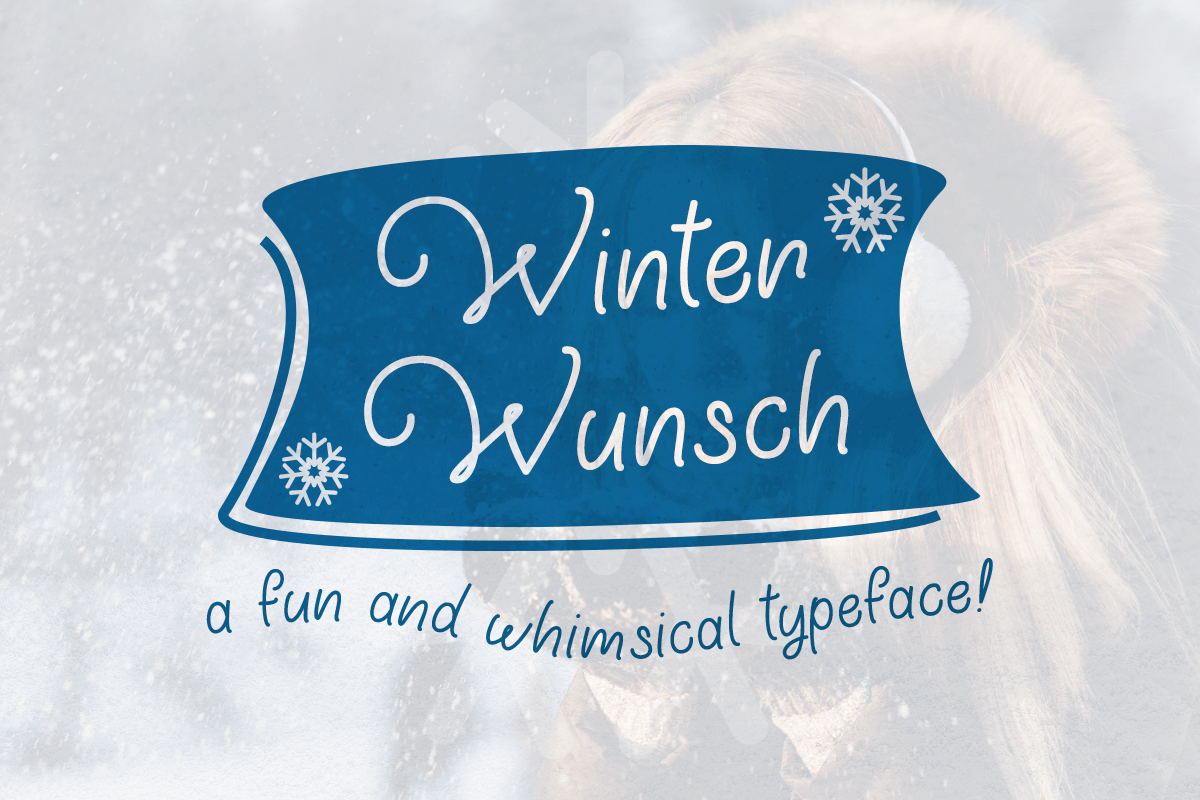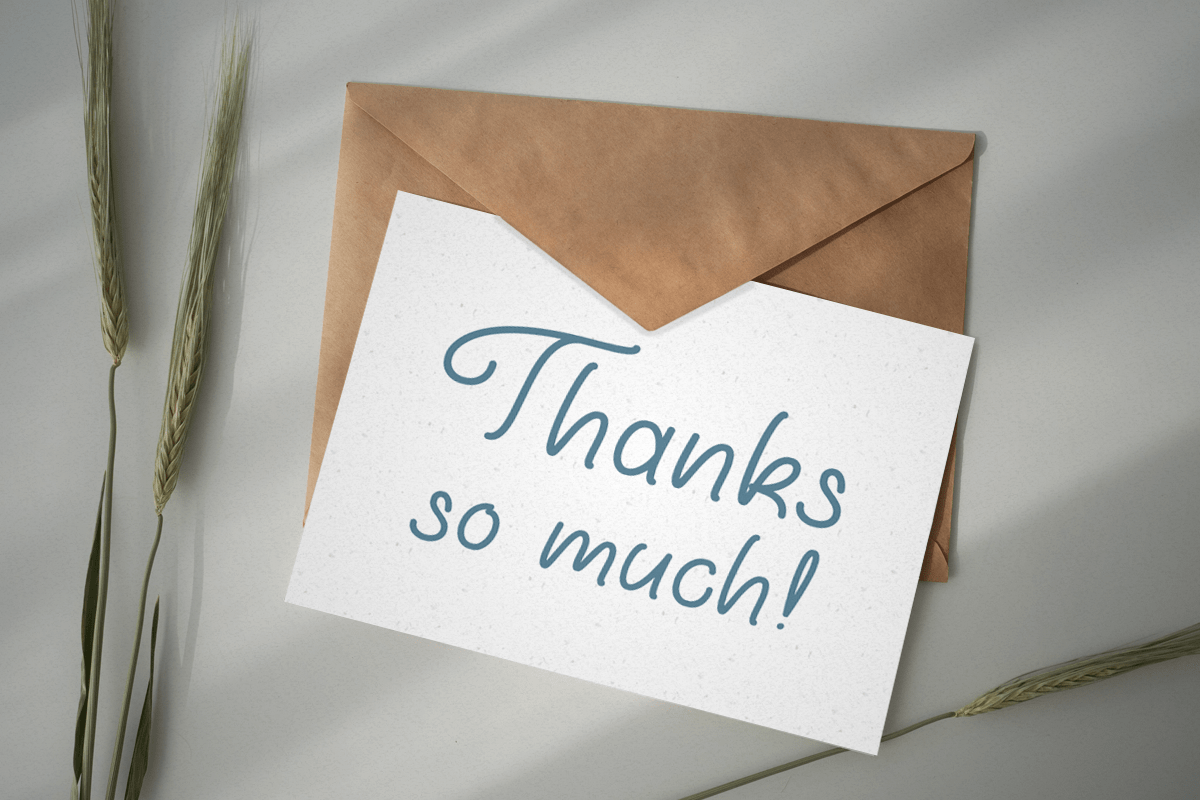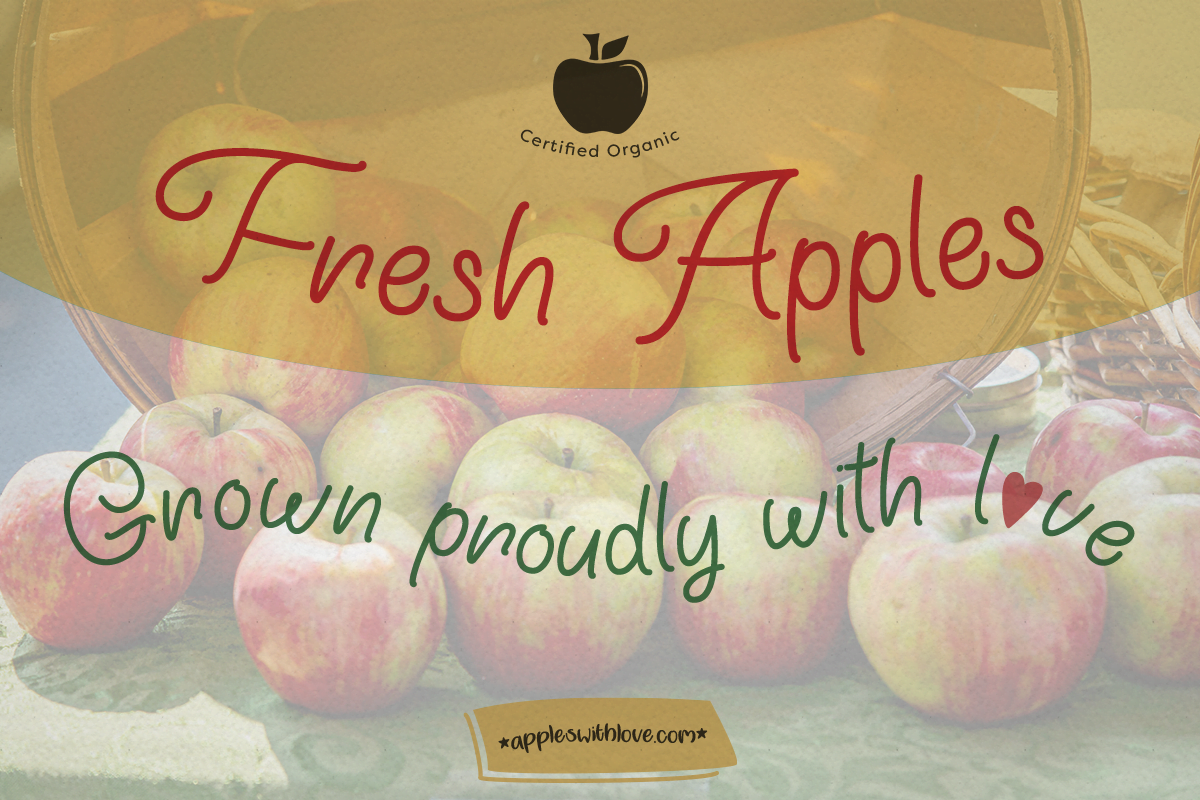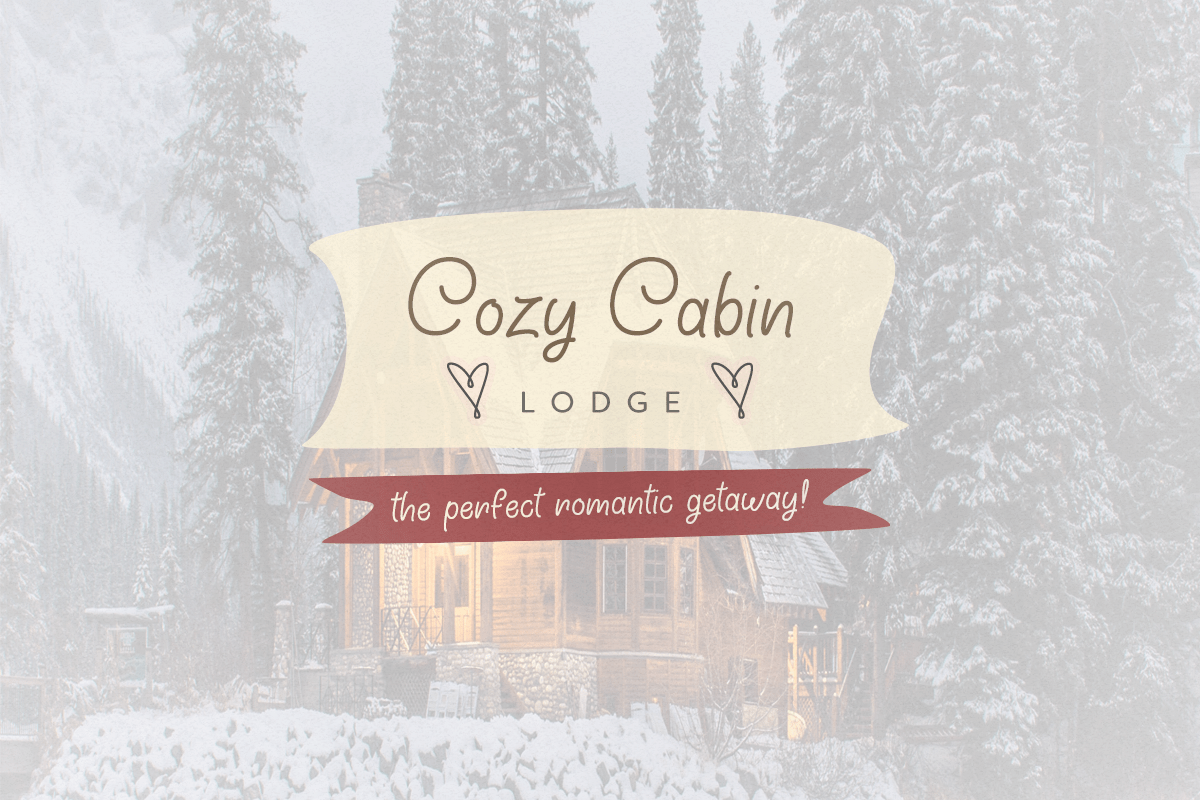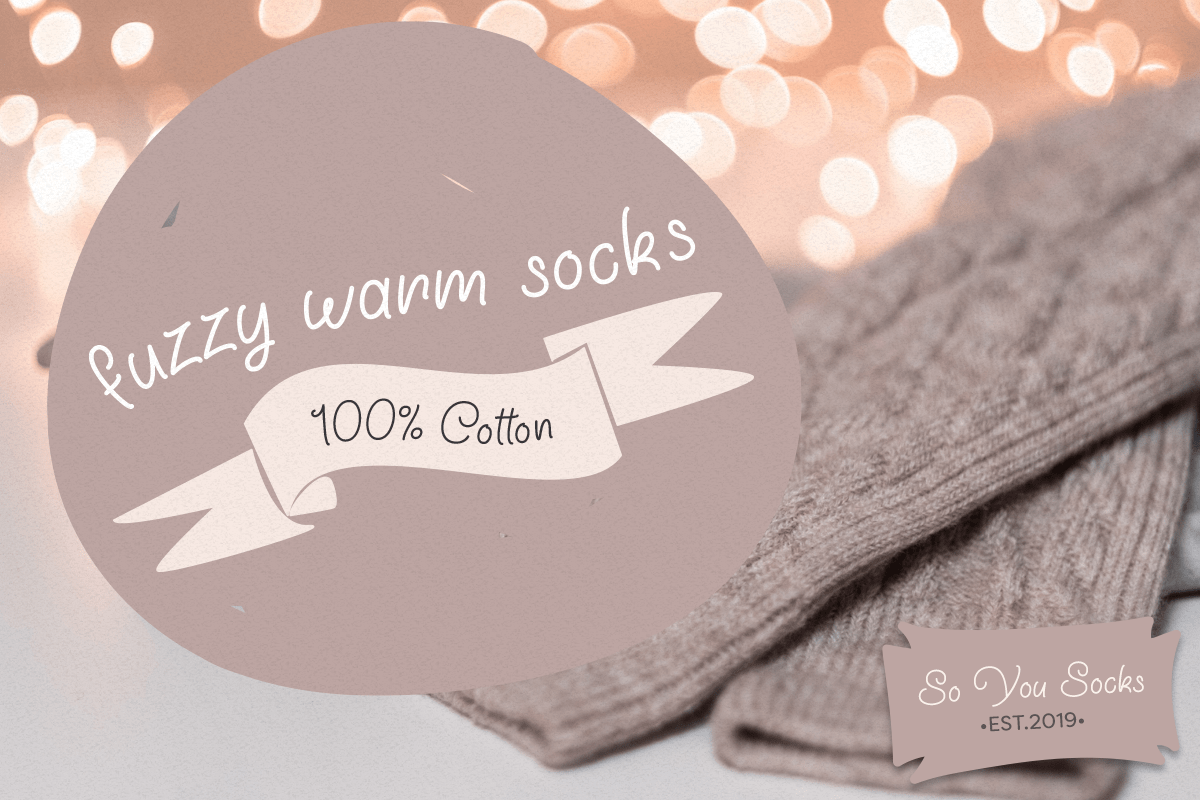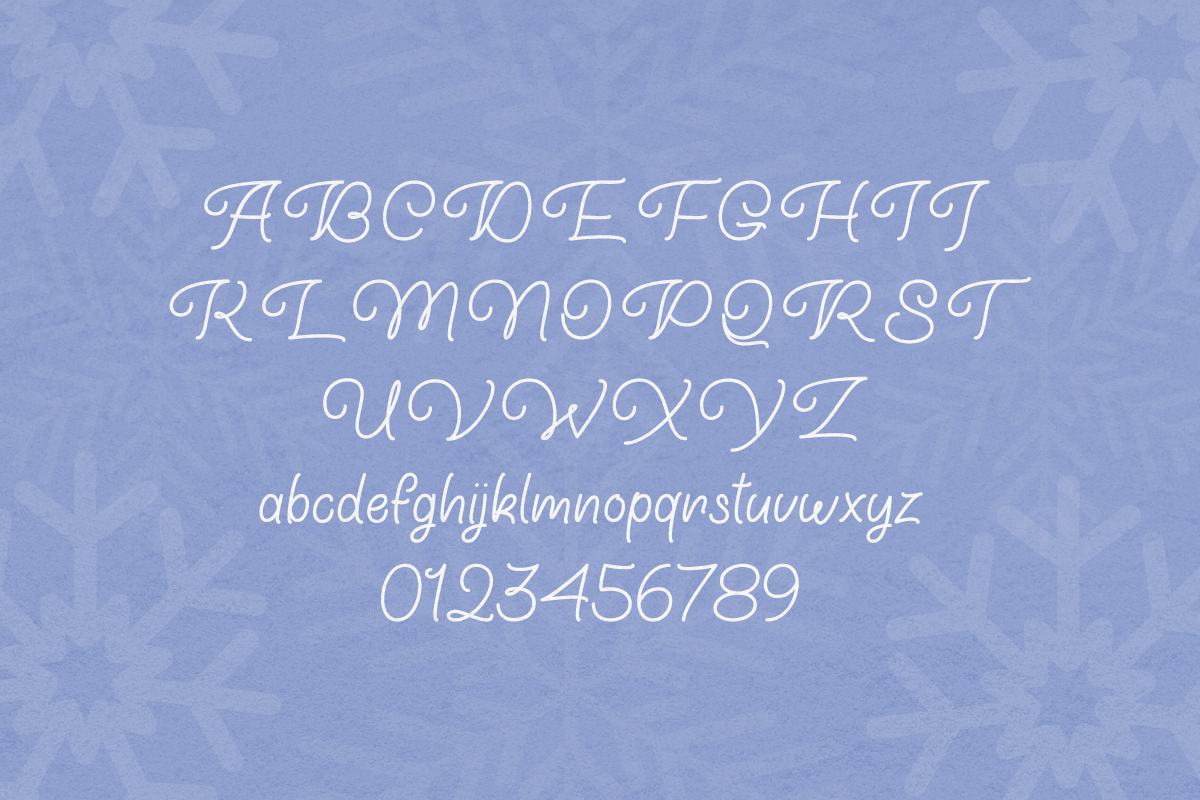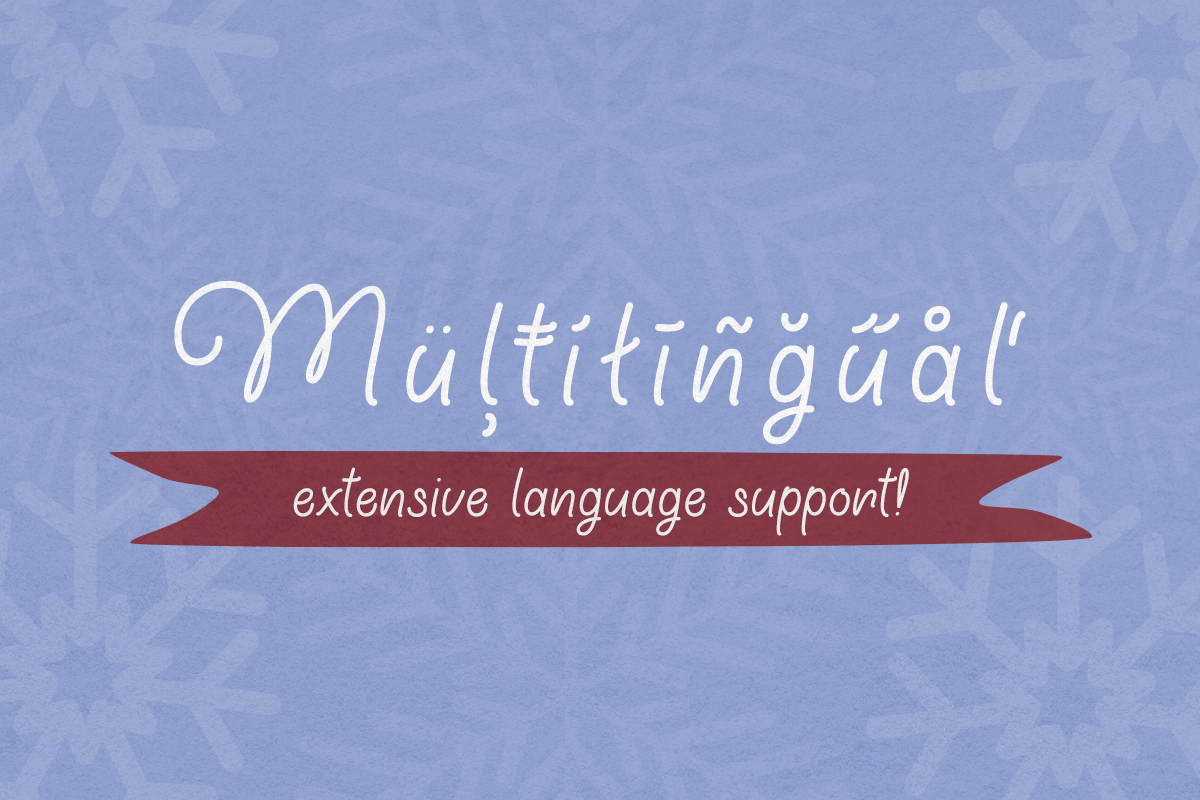
Winter Wunsch
Winter Wunsch is a festive handwritten script that is full of fun and cheer. It combines both fancy uppercase and bouncy lowercase that will add whimsical flair to any project. Great for advertisements, product labels, greeting cards, graphics, social media, logos and so much more!
Type * (asterisk) for the snowflake